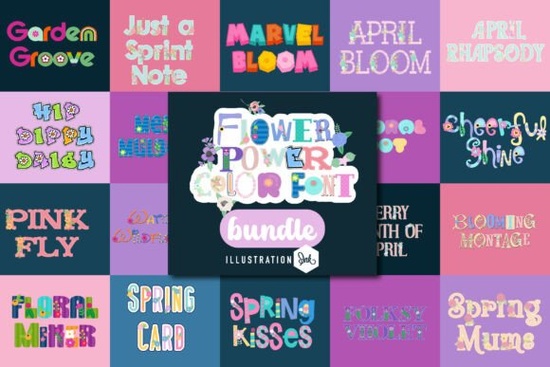
If you’ve been searching for a way to add cheerful, hand-drawn charm to your creative projects, the Flower Power Color Font bundle might be exactly what you need. This collection includes 20 full-color fonts, each infused with floral motifs and soft retro vibes perfect for spring-themed designs, baby shower invites, or even botanical branding. Unlike standard fonts, these are layered with actual color and texture, so they stand out without extra editing.
What makes this bundle especially useful is how ready-to-use it is. You don’t need to manually add flowers or overlays the typography itself carries the garden-inspired aesthetic. Whether you're designing greeting cards, printable wall art, or merch for your online shop, these fonts bring personality with minimal effort.
Who is this font bundle best for?
This set shines for creators who want visual interest without complex design work:
- Print-on-demand sellers can use it for mugs, tote bags, or T-shirts featuring uplifting quotes with floral accents.
- Small business owners running florists, cafes, or wellness brands will find it ideal for social graphics or packaging.
- Crafters and hobbyists making scrapbooks, party decor, or nursery prints will appreciate the whimsical, handmade feel.
- Graphic designers looking for quick, eye-catching typography for client mockups or seasonal campaigns.
How does it compare to other decorative fonts?
Many colorful fonts rely on flat tints or require layering multiple files to achieve dimension. The Flower Power bundle stands out because each letter often includes integrated petals, leaves, or subtle gradients so it looks rich even at small sizes. It’s not just a font; it’s a mini illustration built into every character.
Realistic tips for using floral color fonts
Floral fonts can easily overwhelm a layout if overused. Here’s how to keep your designs balanced:
- Pair with simple sans-serif fonts. Let the decorative font shine as a headline or accent, and use clean typefaces for body text.
- Avoid busy backgrounds. These fonts already carry visual texture place them on solid or softly gradiented backdrops.
- Scale thoughtfully. Some details may blur if printed too small, so test print sizes before finalizing.
For inspiration, you can explore how others have used similar styles by checking out examples of the Flower Power Color Font in real projects. Seeing it applied helps gauge spacing, color harmony, and context.
Remember: the goal isn’t to collect every font, but to find a few versatile ones that align with your brand or creative voice. The Flower Power bundle works well because it’s cohesive every font shares a gentle, optimistic mood that’s easy to mix and match.